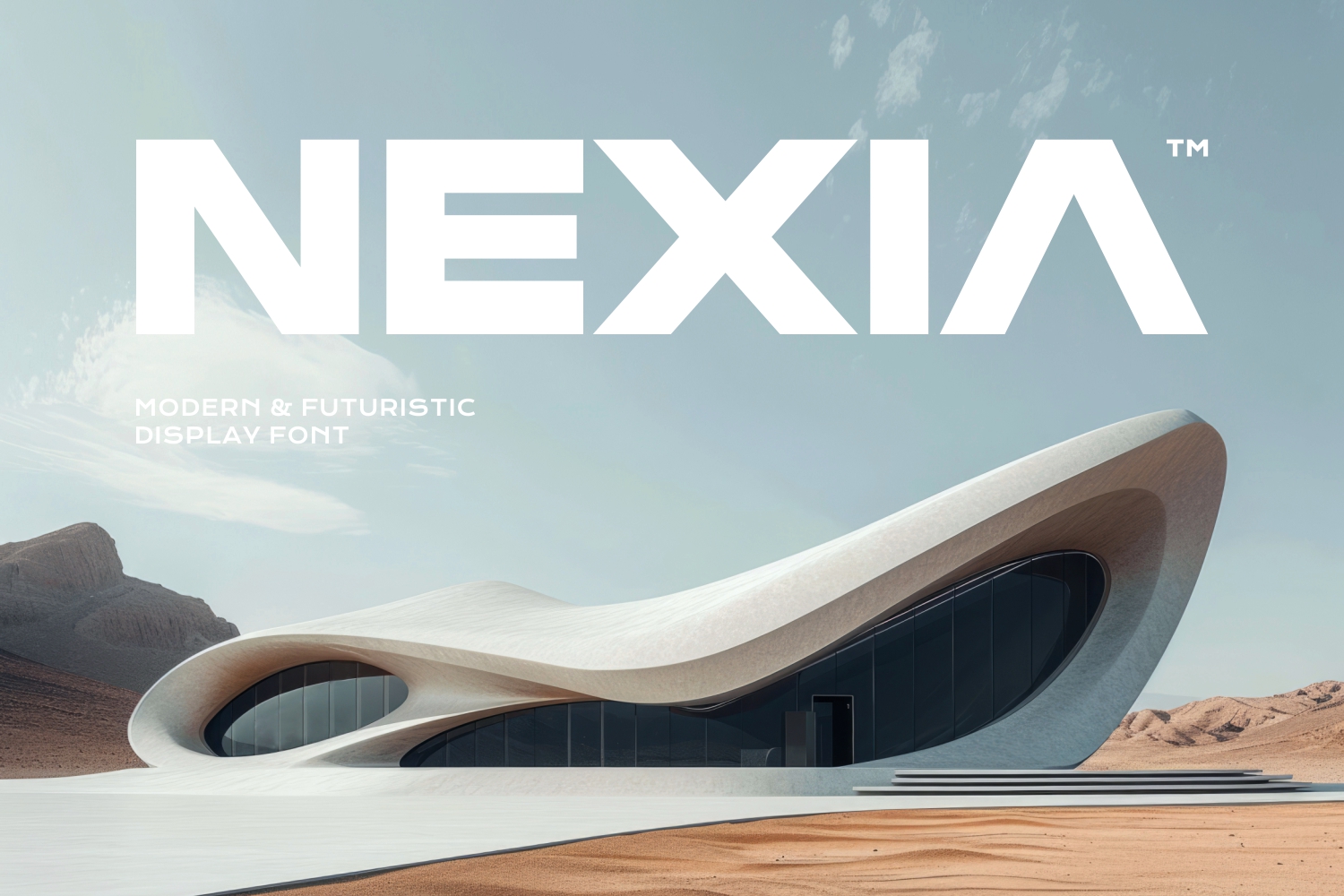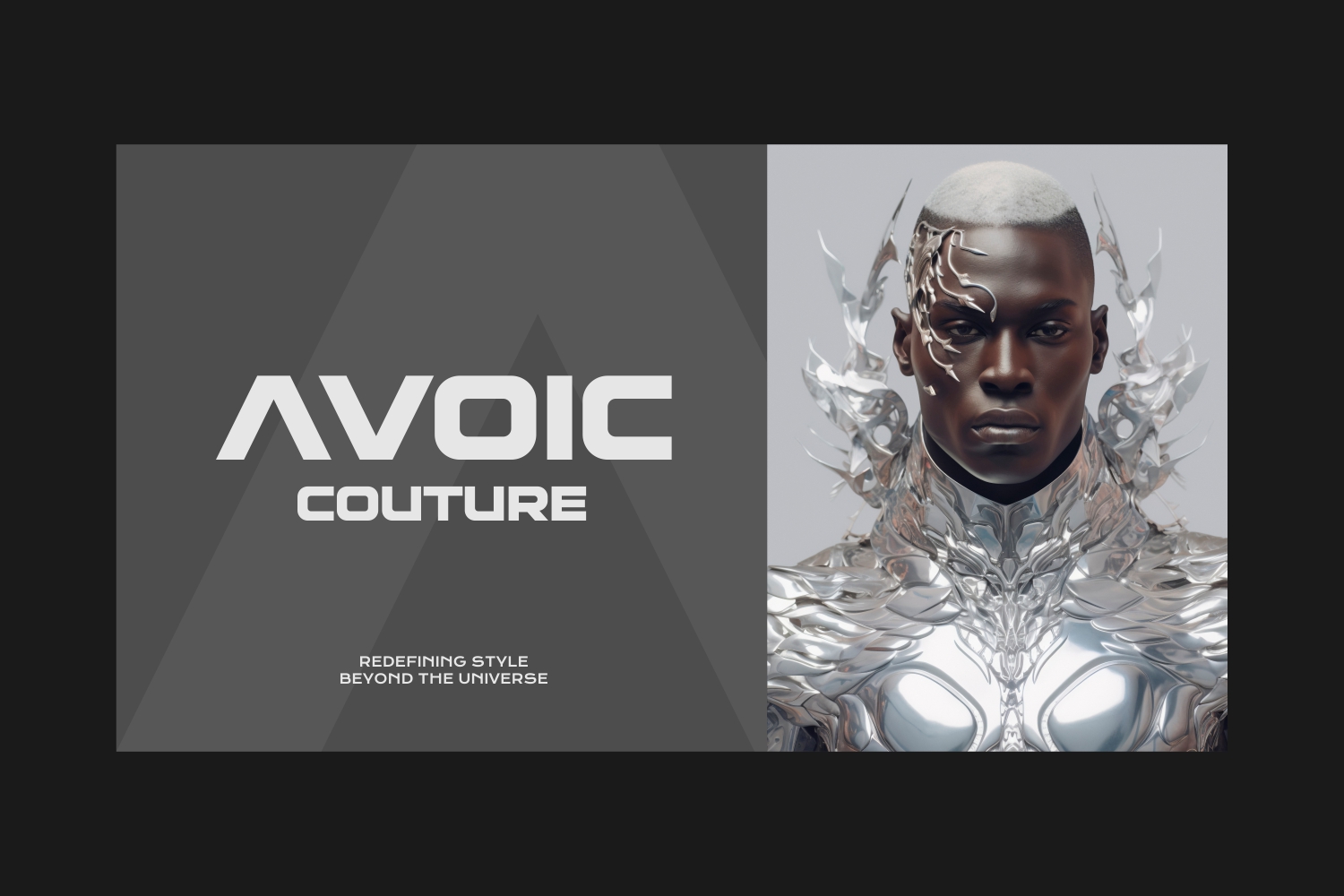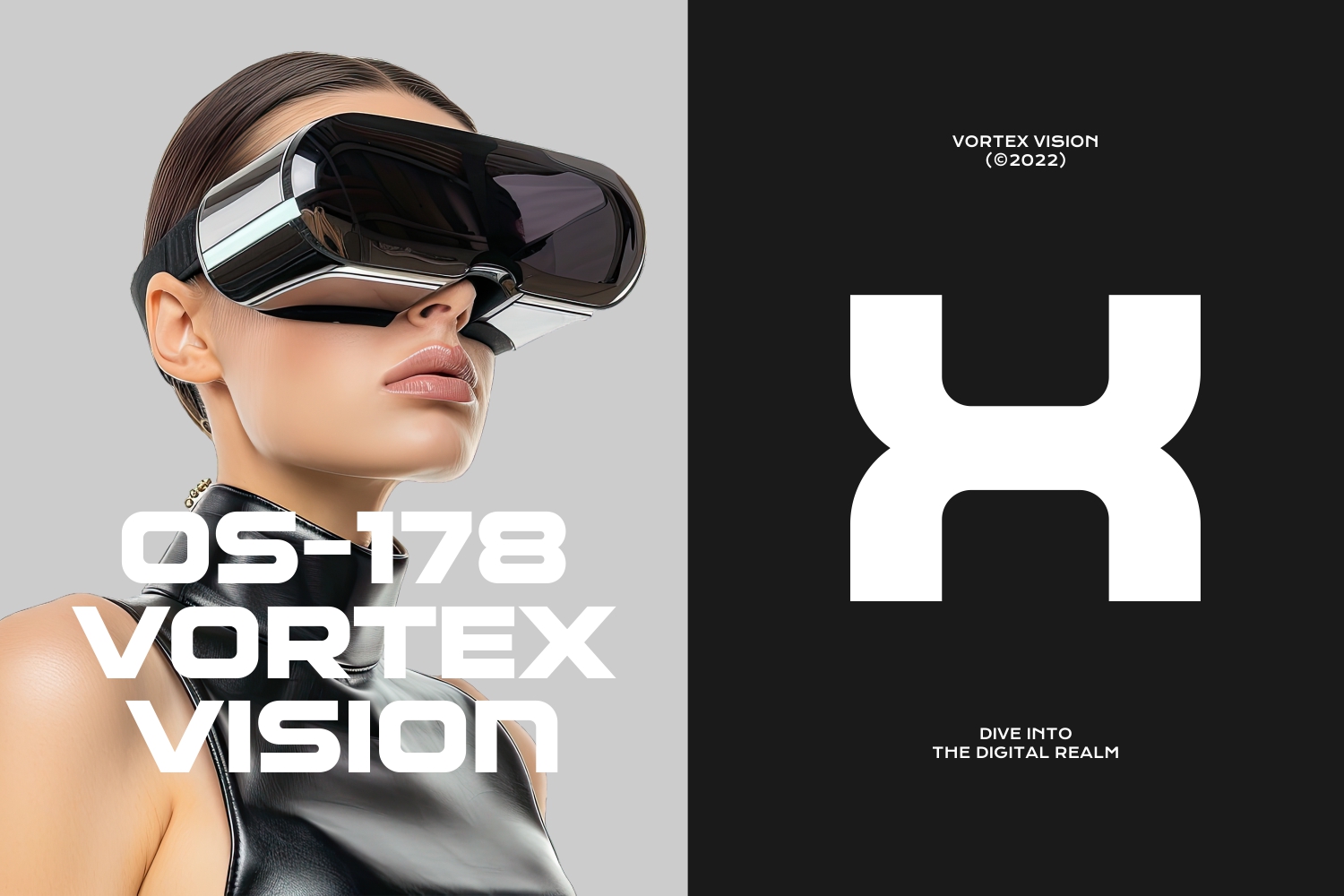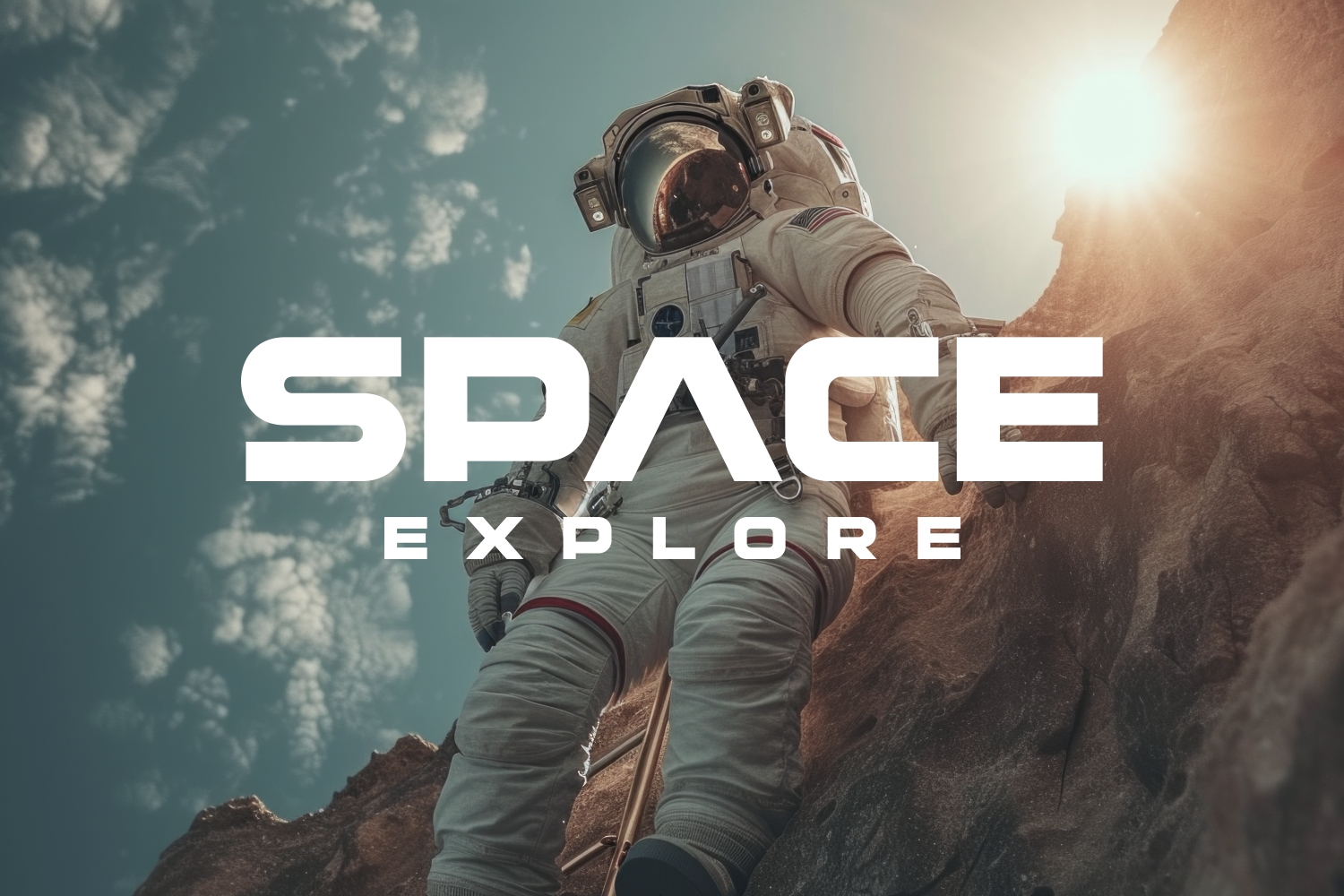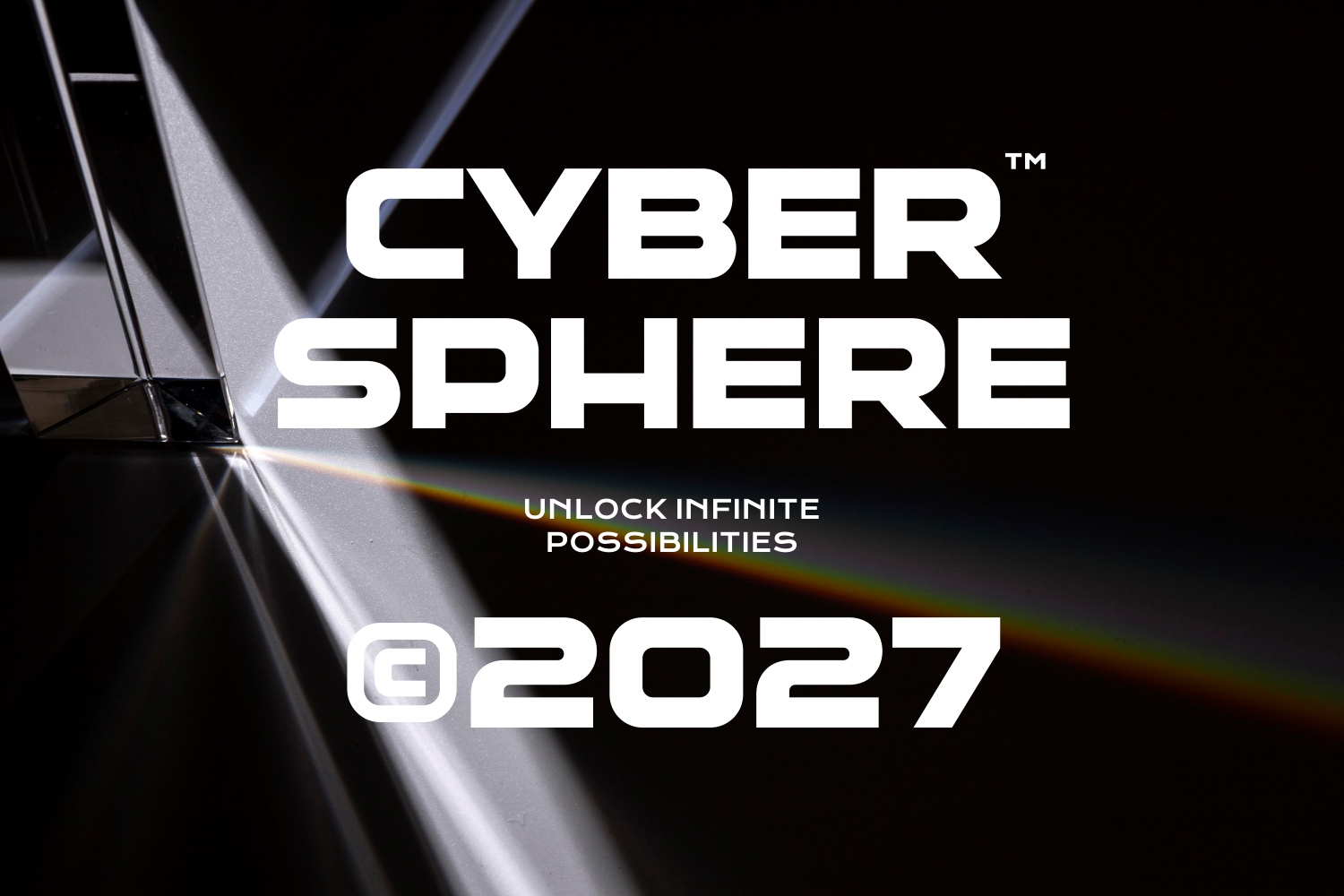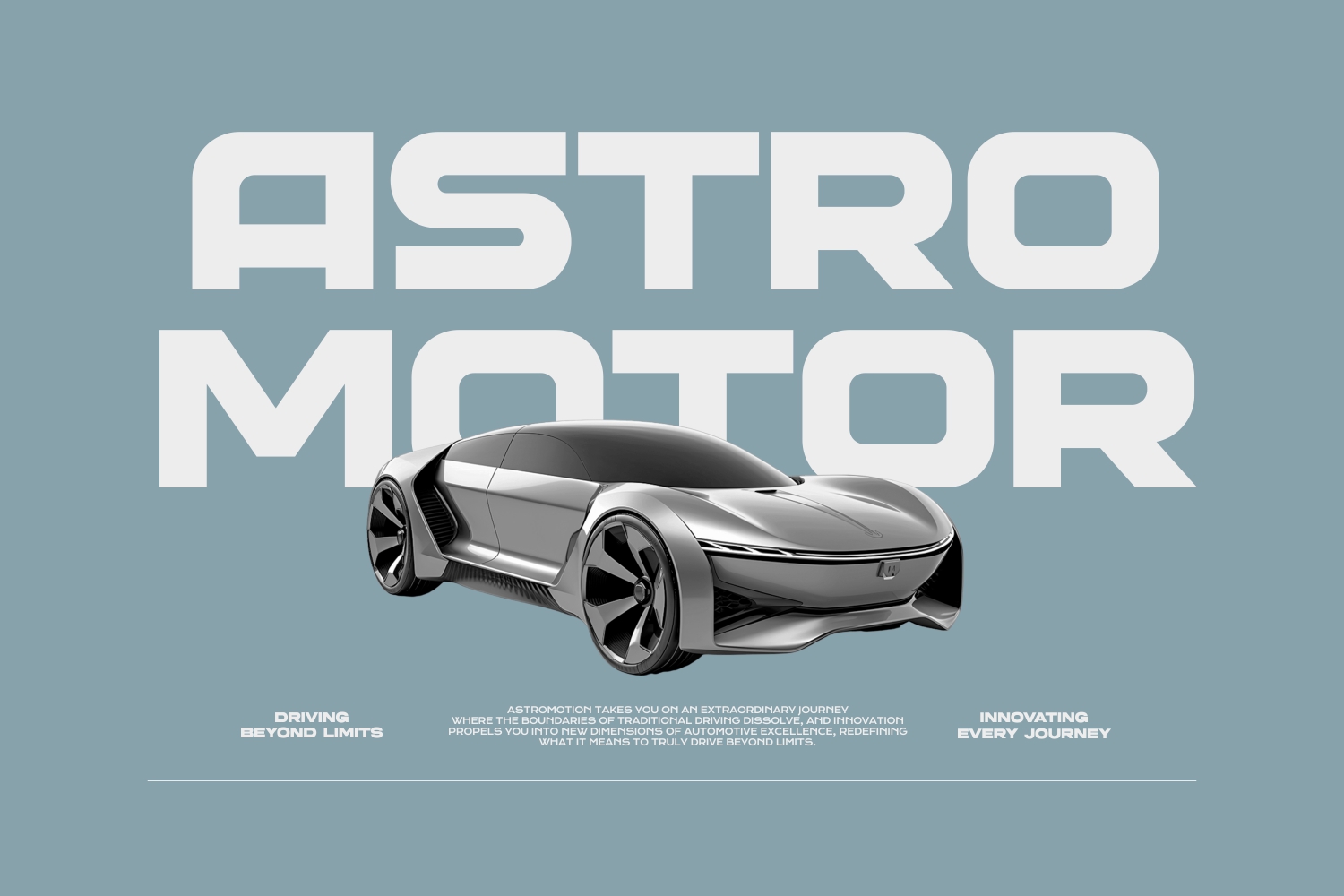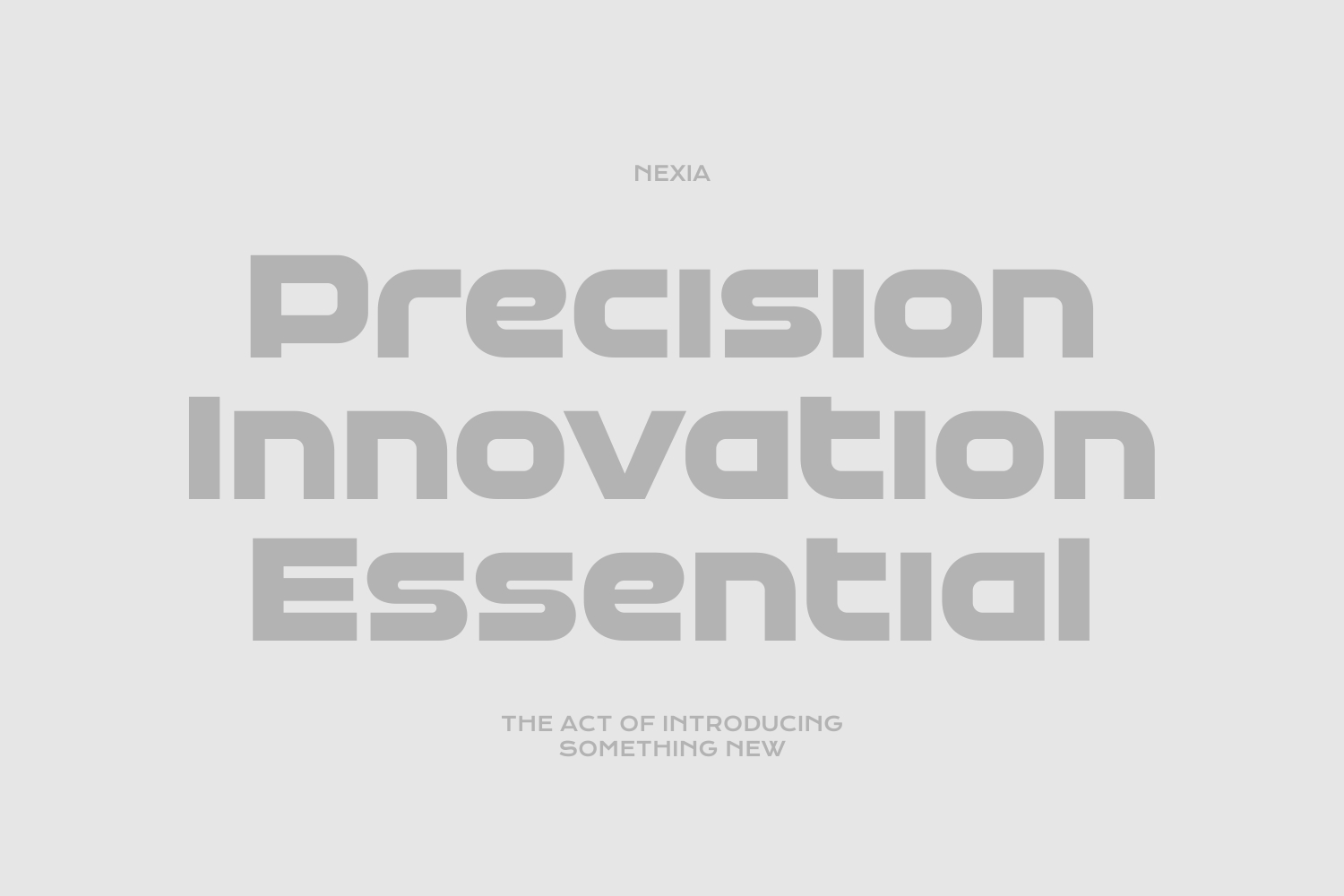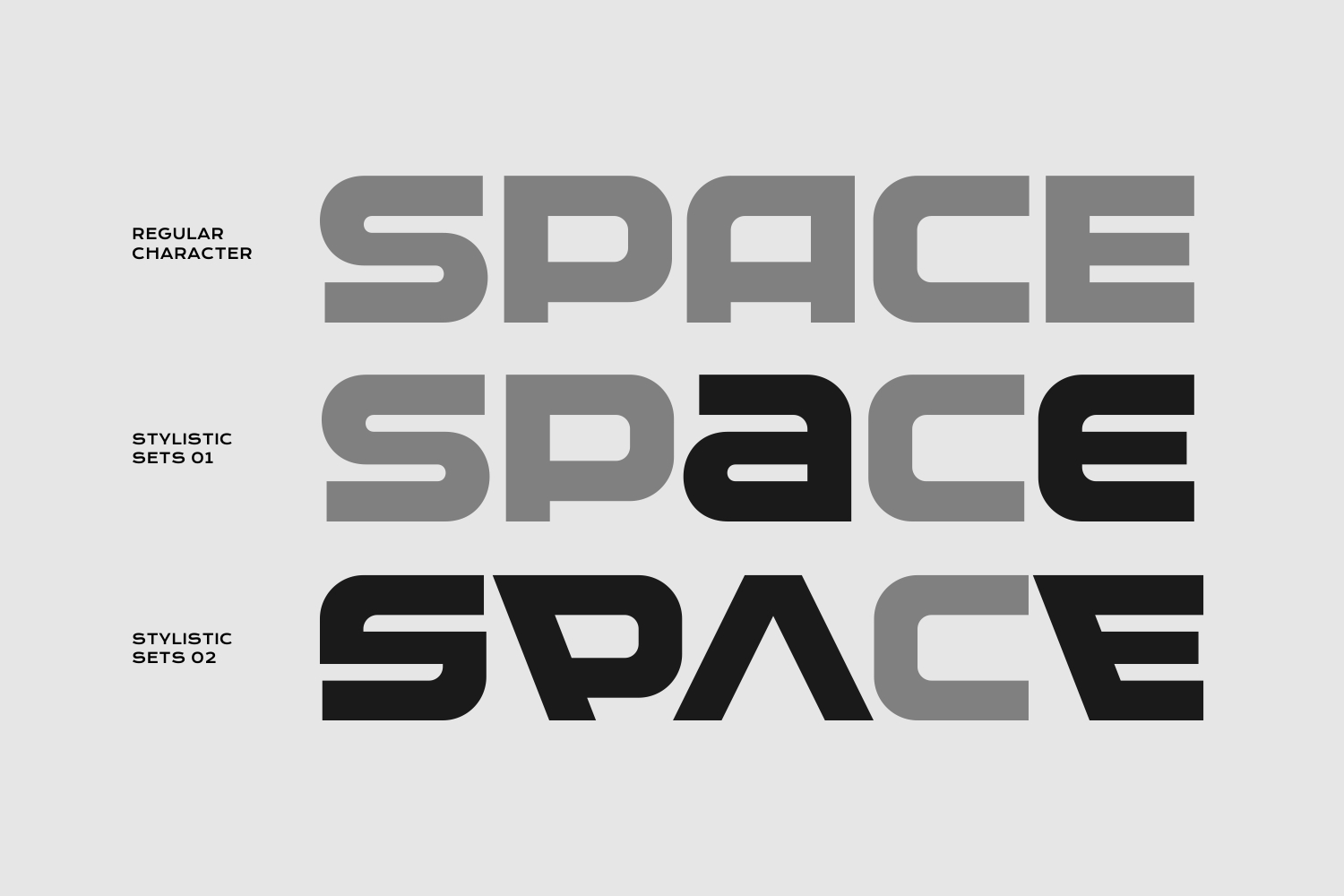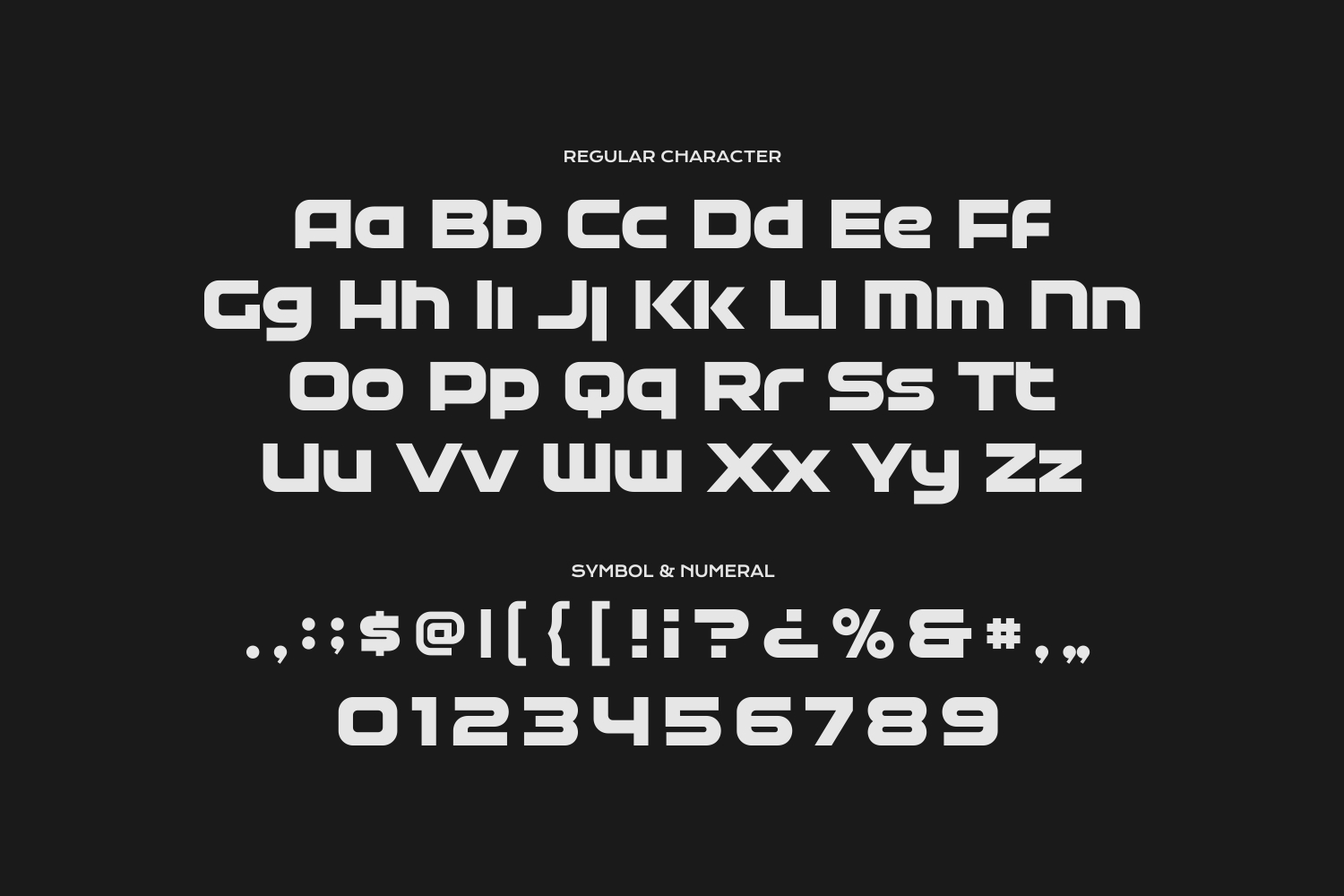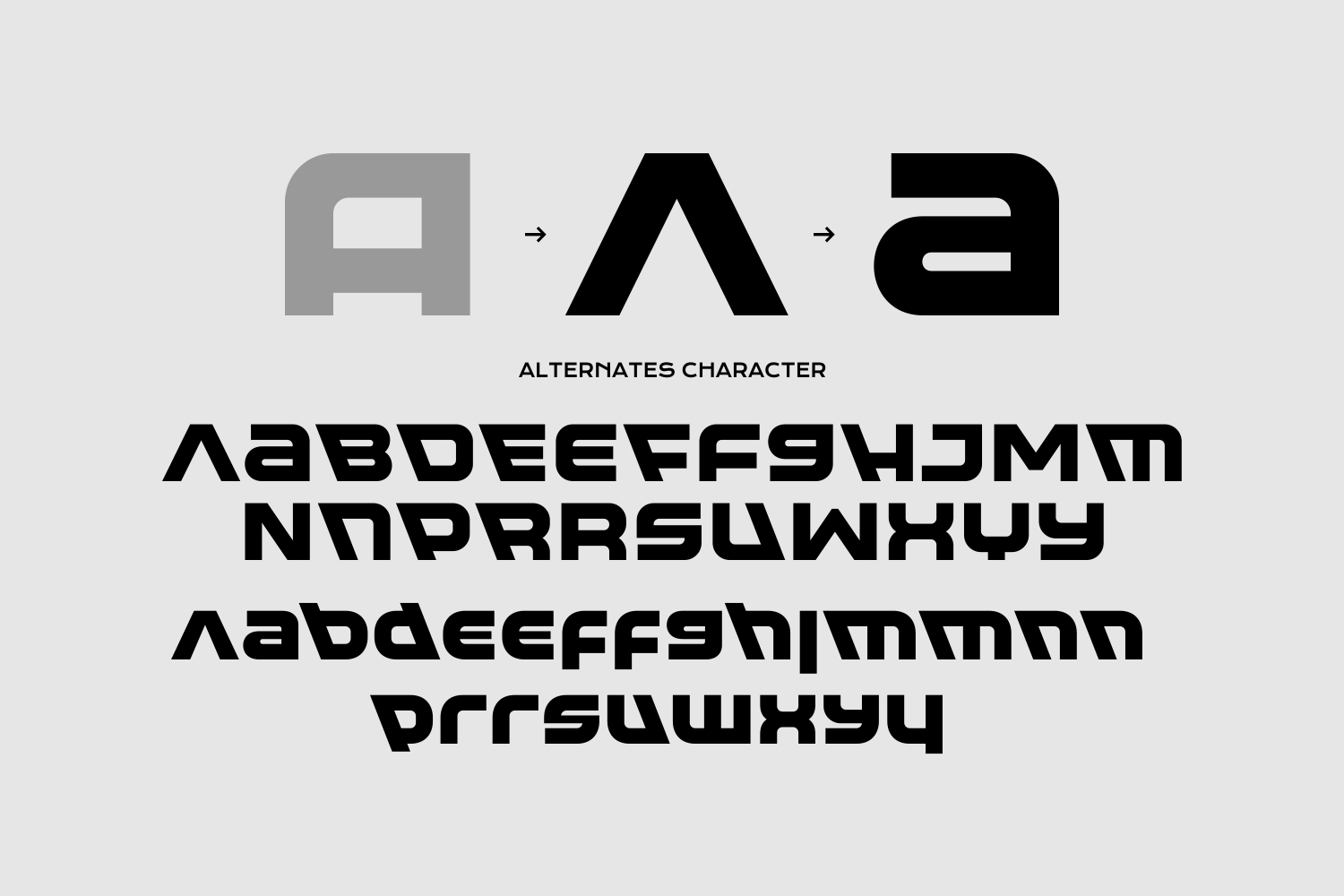
NEXIA – Modern & Futuristic Display Font
NEXIA is a bold and visionary display font designed for the future. With its sharp geometric structure, sleek terminals, and sci-fi aesthetics, NEXIA brings a high-tech edge to any visual. Perfect for branding, UI interfaces, tech startups, space-themed projects, and automotive or architectural concepts.
From cyber gear to galactic explorations, NEXIA delivers clarity, strength, and a modern identity. Its powerful letterforms are ideal for headlines, posters, and bold typographic compositions that demand